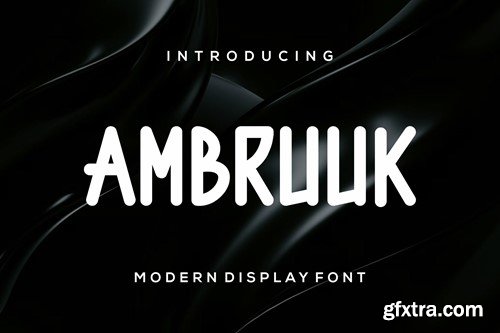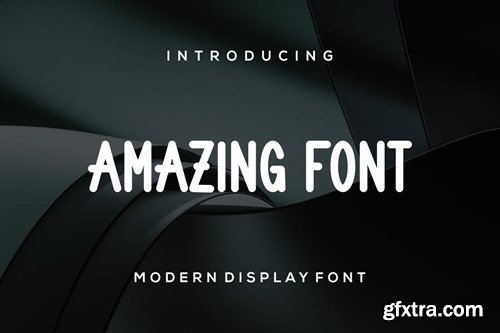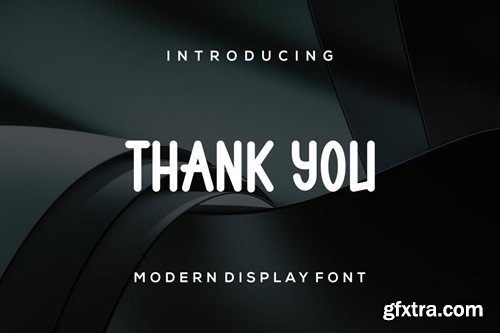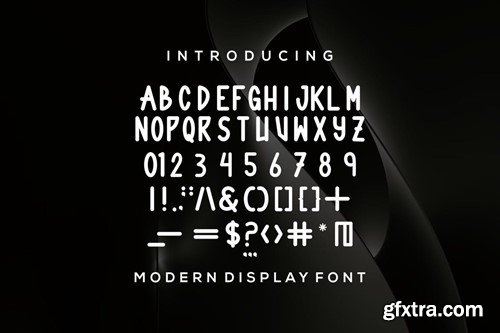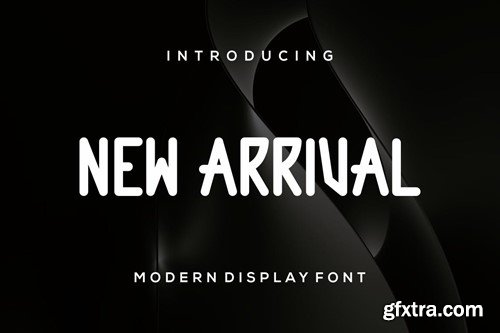
阿姆布鲁克字体ASSXV63
Ambruuk Font
Introducing our new product Ambruuk Font - Modern Fonts Ambruuk Font - Modern Font is a bold and authentic display font. This font is suitable for any branding projects such as logos, esport and more. extraordinary in many contexts. available *otf *ttf